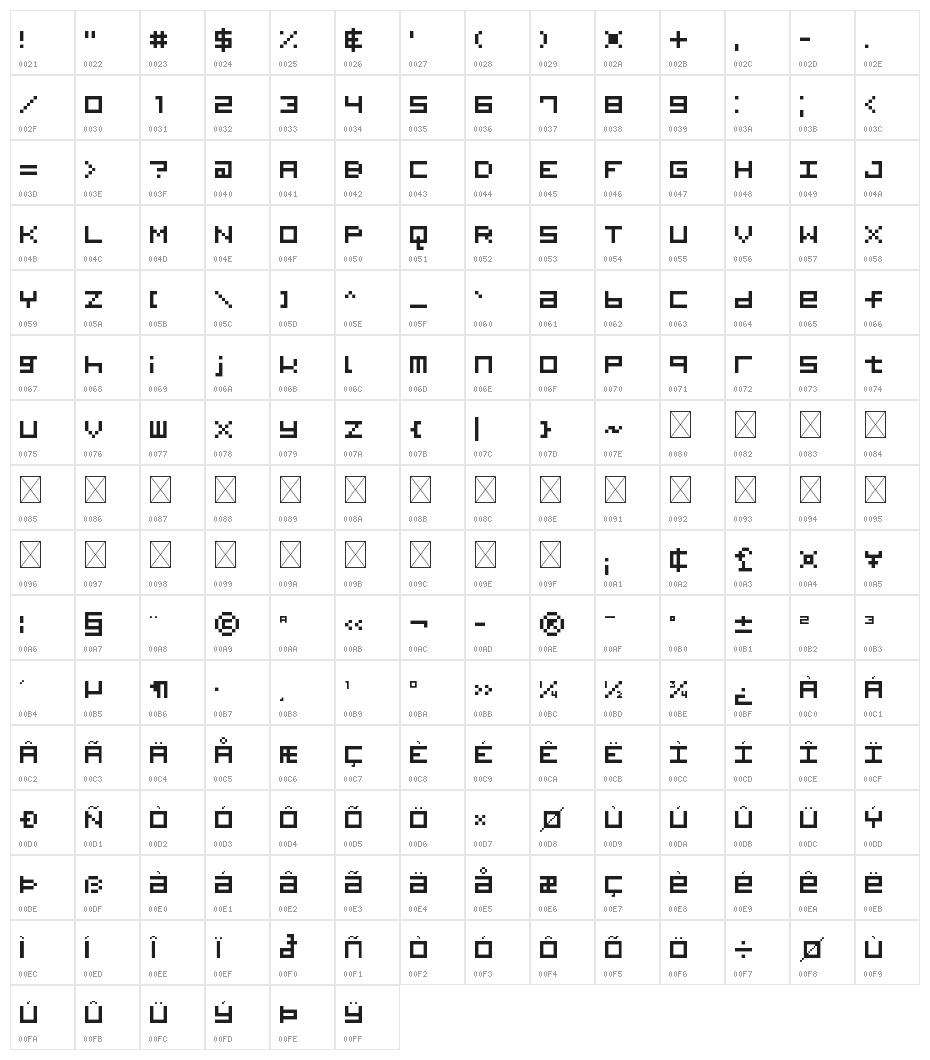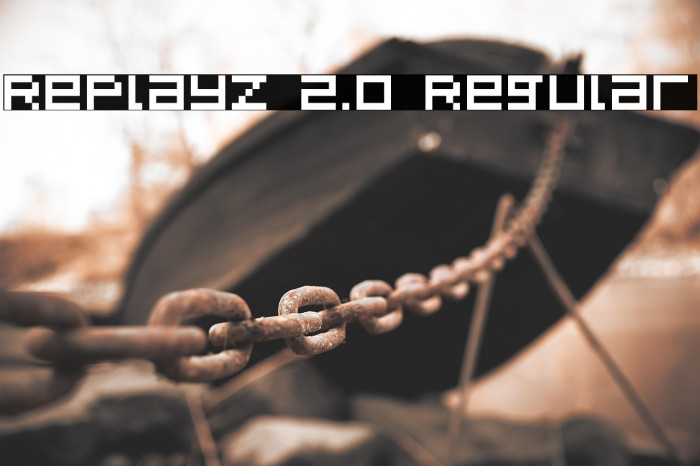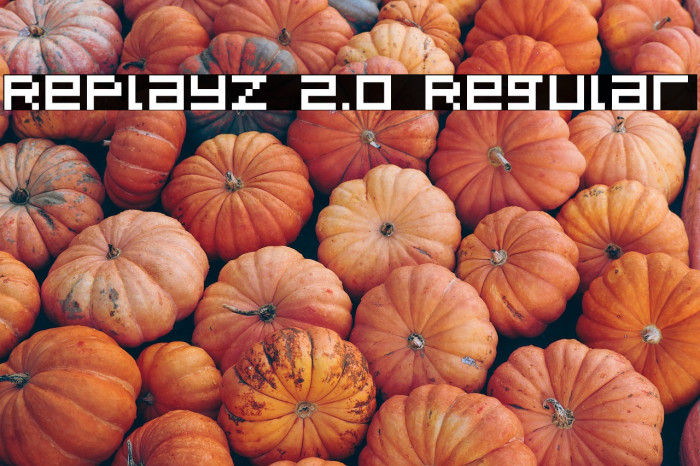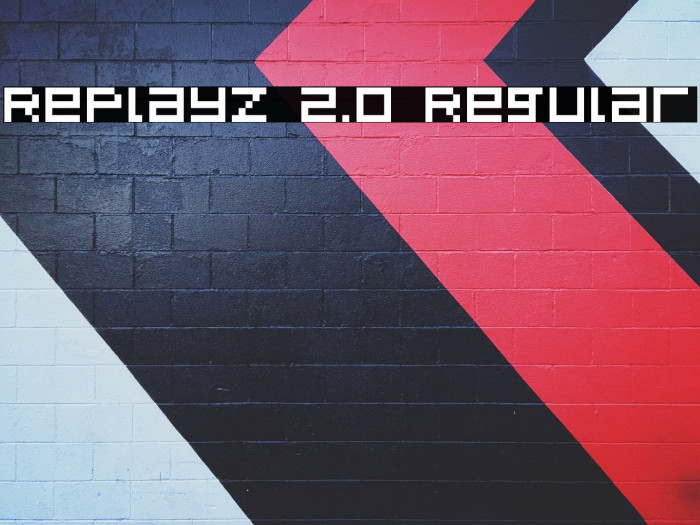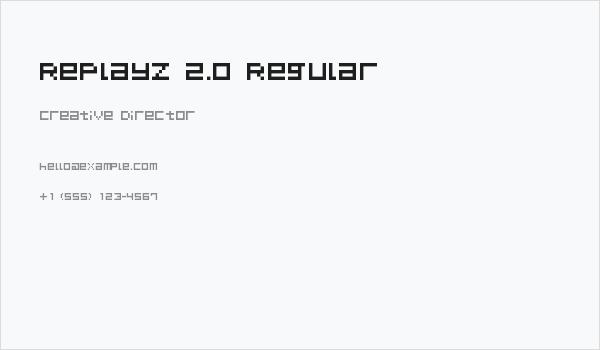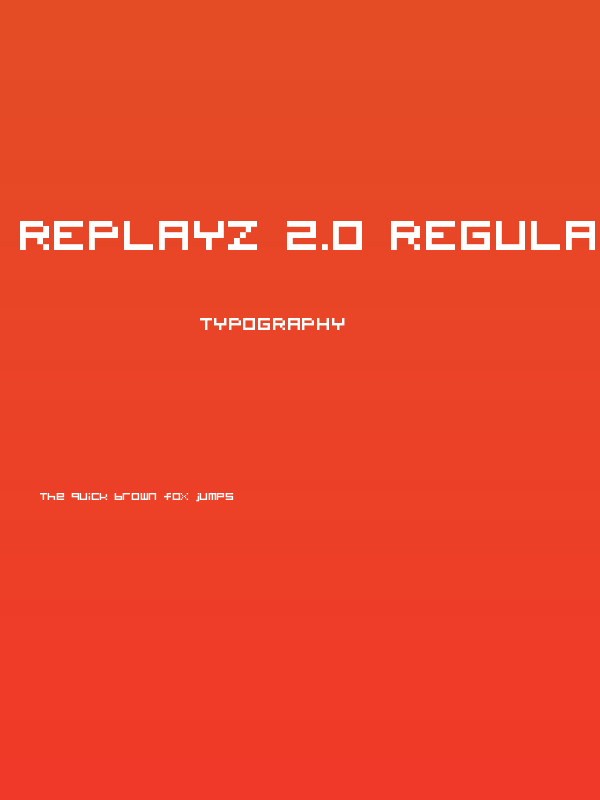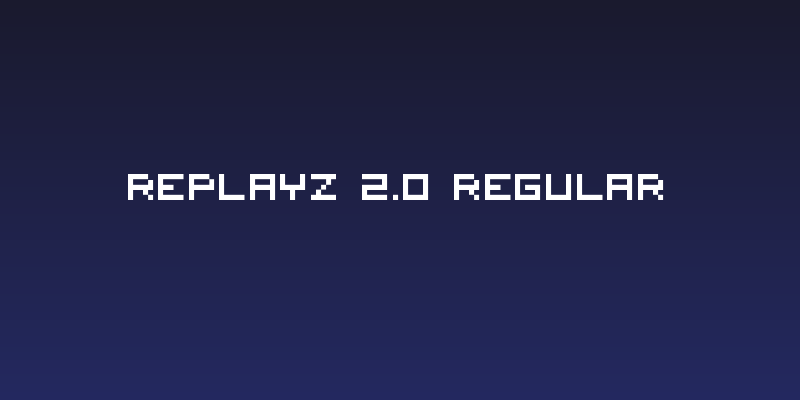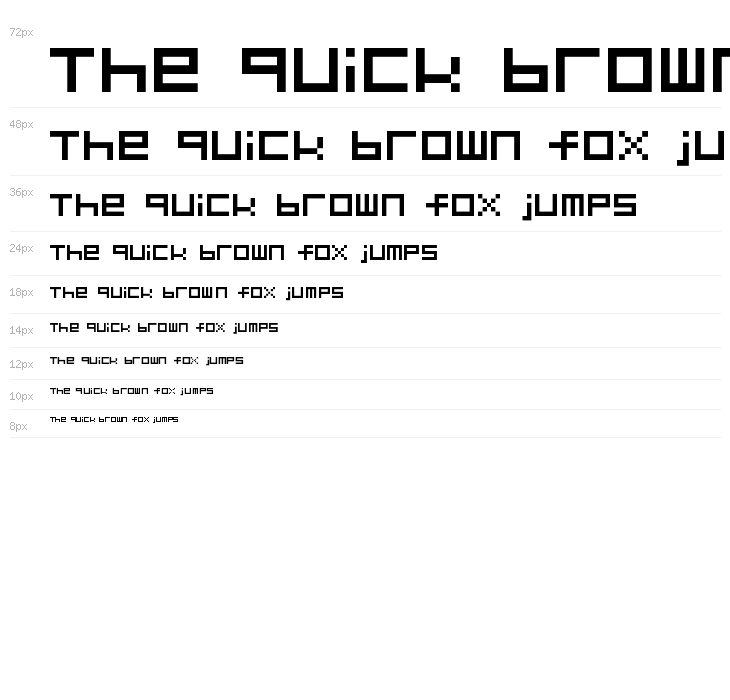
RePlayz 2.0 Regular Font
RePlayz 2.0 Regular Description
This font features a pixelated, blocky design reminiscent of classic 8-bit video games. Each character is constructed with uniform square blocks, giving it a distinctly retro and digital appearance. The uppercase and lowercase letters maintain a consistent height, contributing to a monospaced feel, although the font is not strictly monospaced. The numerals and special characters follow the same pixelated style, ensuring a cohesive look across all glyphs. The font's geometric structure and lack of curves make it highly legible at various sizes, ideal for digital displays and retro-themed projects.
| Overall Style | Retro, Digital |
| Use Case | Headlines, Logos, Digital displays |
| Proposed Projects | Ideal for video game design, retro-themed graphics, digital displays, and tech-related branding. |